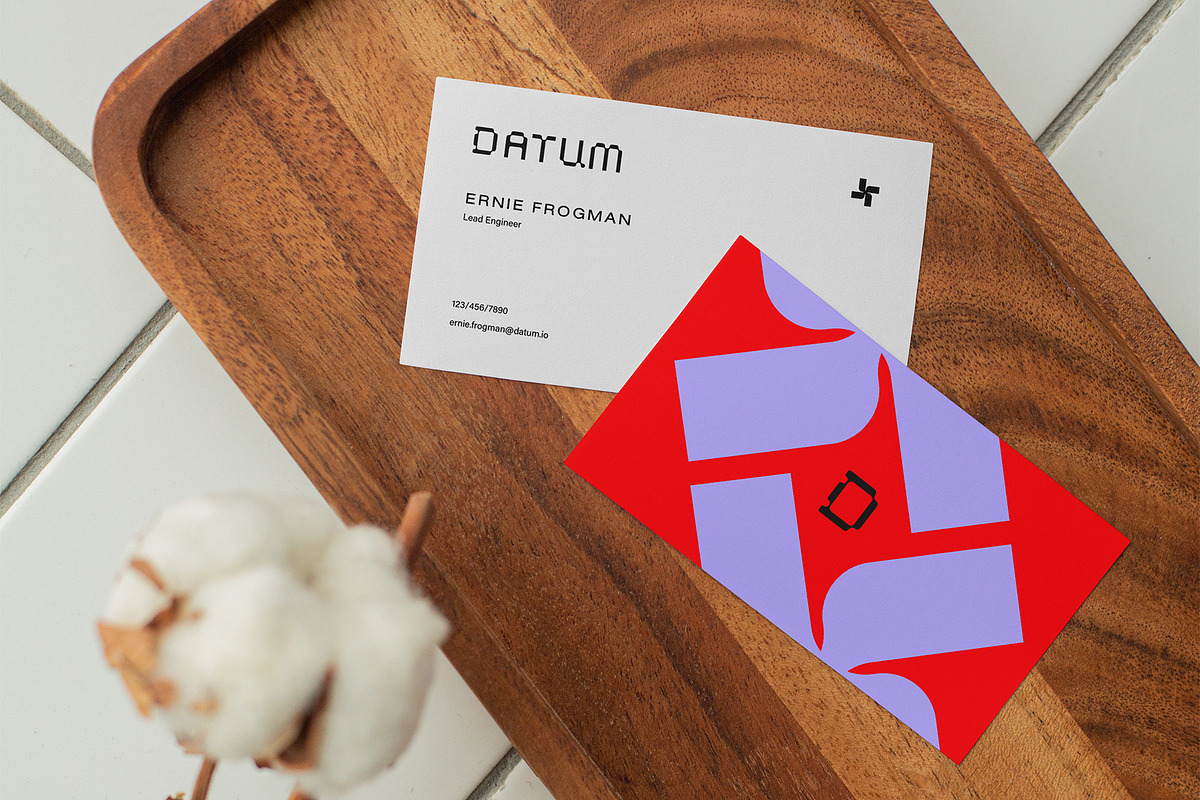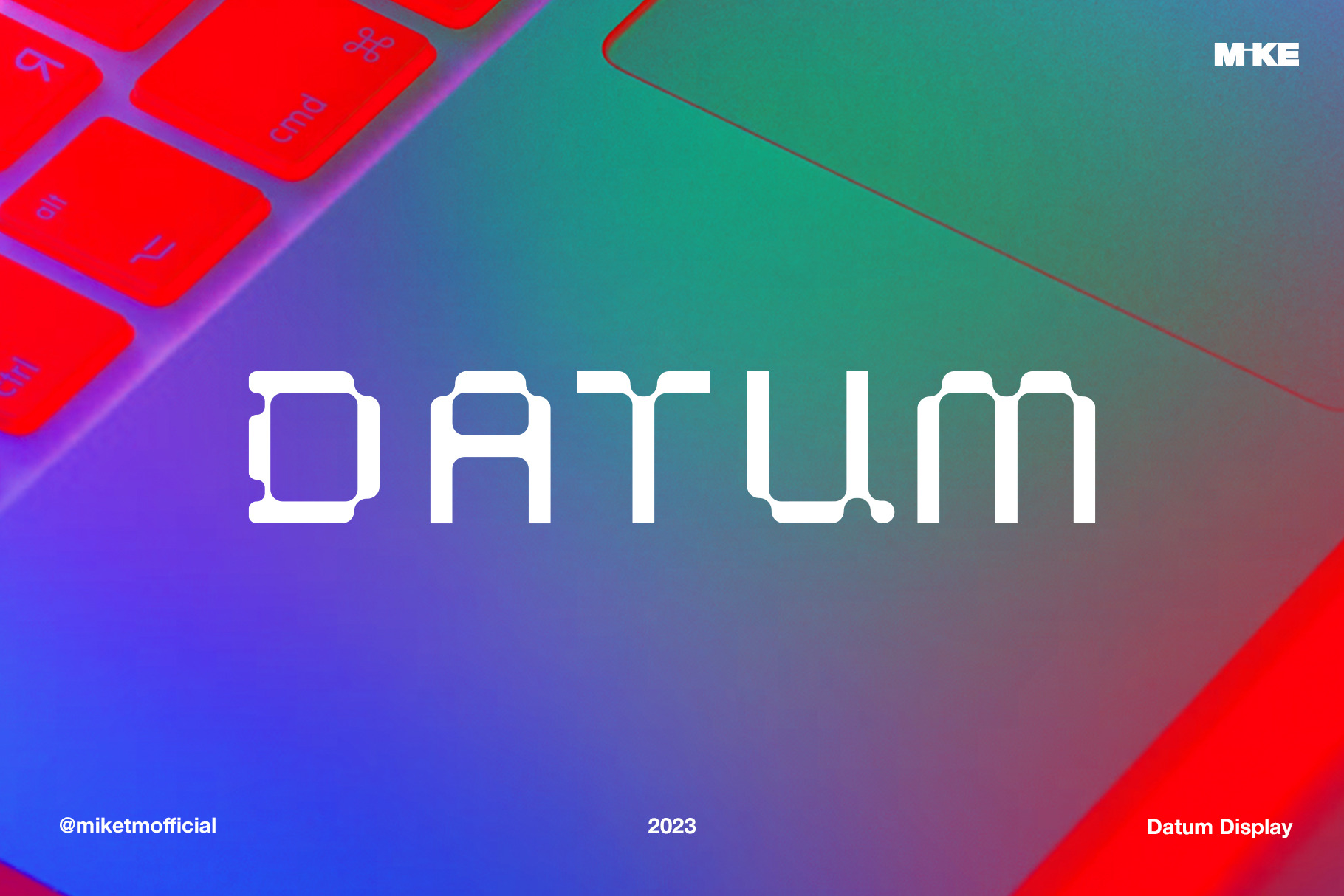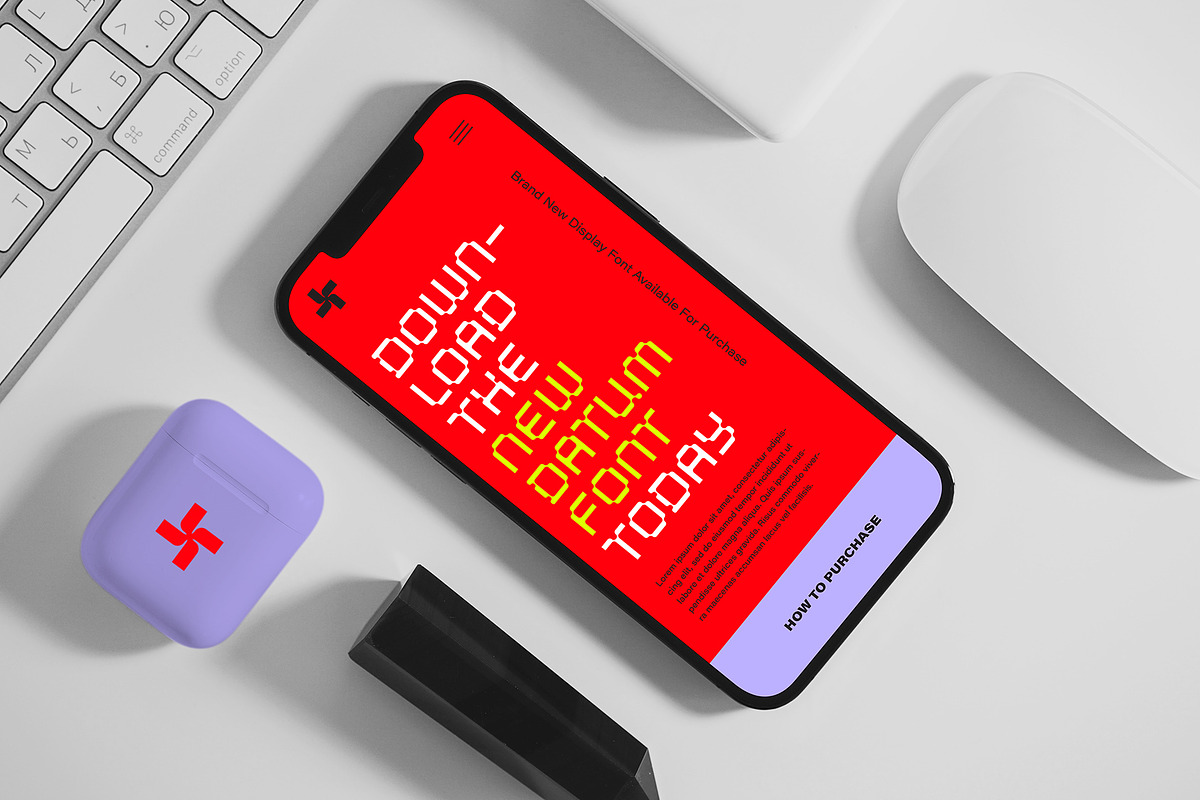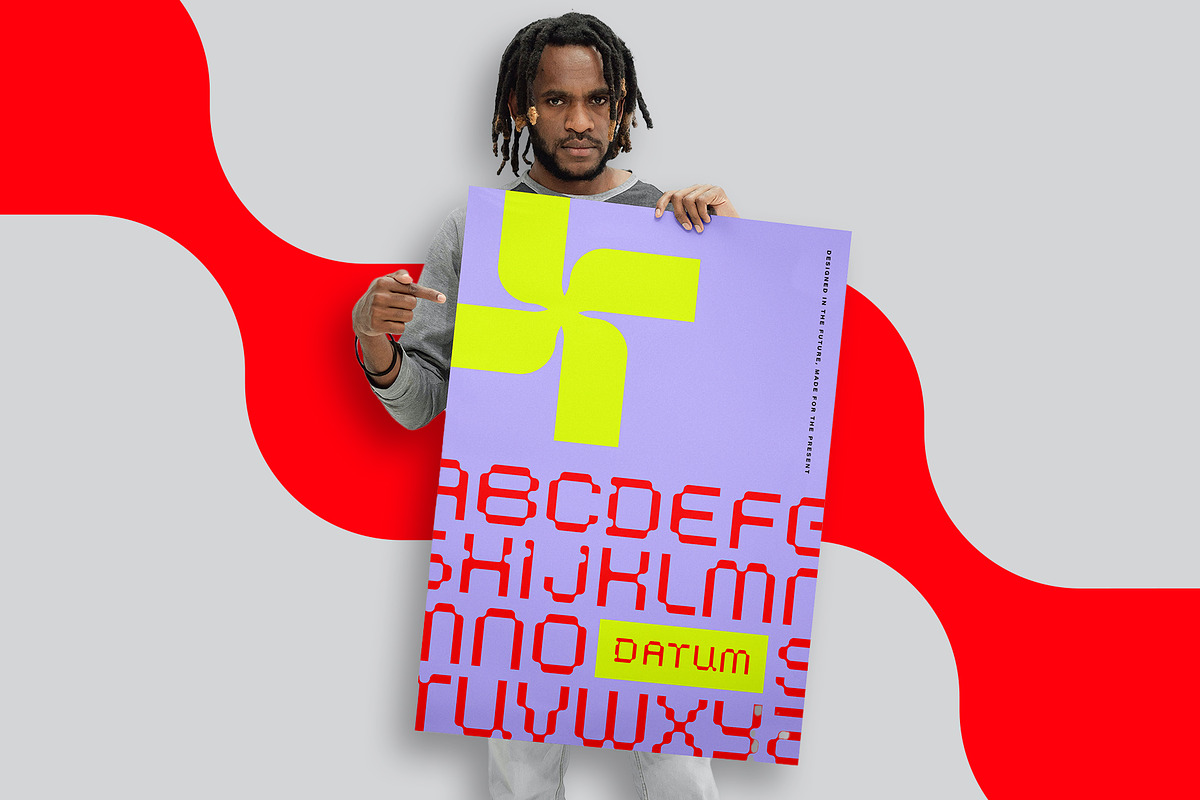
Datum Display Font
Made in the future and designed in the present, Datum Display is a modern display font inspired by the forward thinkers of the world.